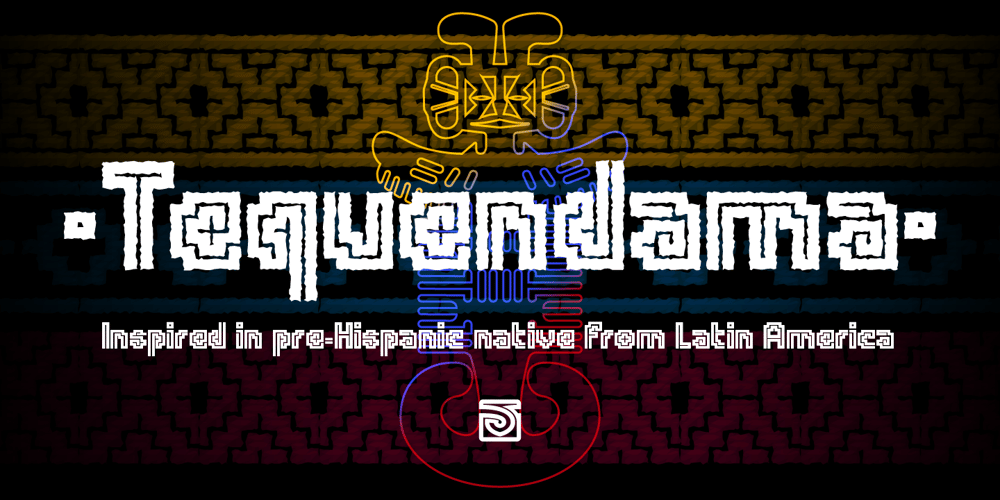
Tequendama
Tequendama font
Tequendama Font Family was designed by John Vargas Beltrán and published by JVB Fonts. Tequendama contains 4 styles and family package options. A display fontface for titles inspired on Latin America, Ethnic, Native, Tribal, Mysthical, Handmade, Aboriginal, Pre-Hispanic, Pre-Columbian, Textured. By mid-1997 I was developed the early type edition was called «Muisca Sans» as my work for the degree in Graphic Design (Universidad Nacional de Colombia), based on the concept of pre-Columbian figures characteristics within some of the very few visual elements recovered from the Muisca culture, ancient pre-Columbian tribe disappeared before the arrival of the Spaniards in what is now central Colombia. In fact, the name of the capital Bogotá (the capital of Colombia) goes back to Bacatá as primary or village downtown of what was once the imperial capital of tribe Muisca. Although this unfinished early typographic project has not yet been published, Tequendama is the evolution of the first one. Tequendama reminds the myth of Muisca culture and religion of this tribe. The god Bochica, a wise old man with a white beard heard the cries of his tribe suffered against flooding of their land losing harvests before the divine punishment resulted by the offended god Chibchacun. However Bochica appeared wearing a white robe sitting on a huge rainbow and he broken the mountain towards the southwest wise old man with a golden staff broke the mountain to drain the flooded savanna. This emblematic and iconic place would later be called as «Salto de Tequendama». Tequendama name also been adopted to a nearby province to Bogotá.